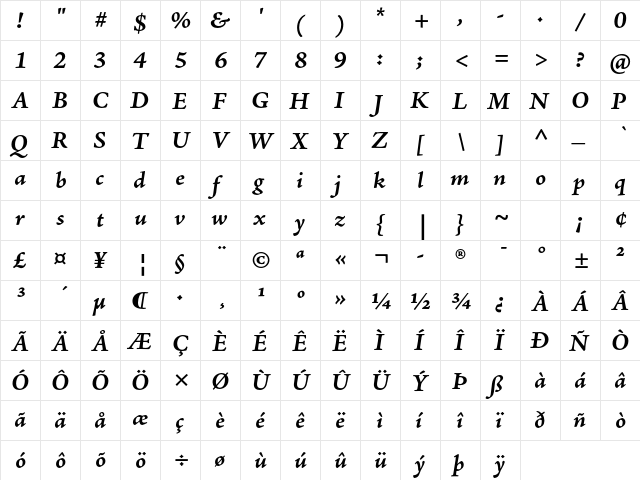
Adobe Jenson Pro Bold Italic Caption Font Preview
| Designer | Robert Slimbach |
Design Context for Adobe Jenson Pro Typeface
Adobe Jenson Pro offers clean, dependable letterforms without strong stylistic allegiance, making it a practical choice for designers who need flexibility. The slanted form adds forward momentum and visual energy. The heavy weight commands attention and anchors typographic hierarchies.
Pro Tip: Try Adobe Jenson Pro for annotation and caption copy alongside an upright companion — the contrast in angle creates a dynamic but ordered typographic system.